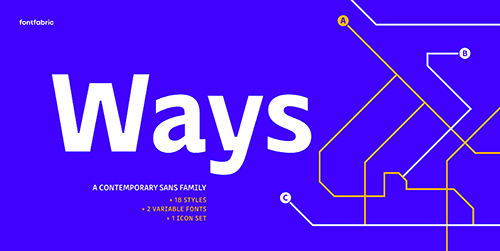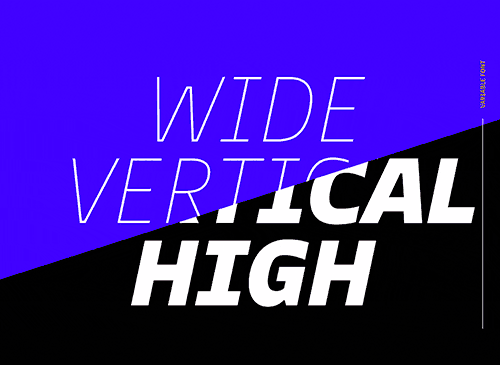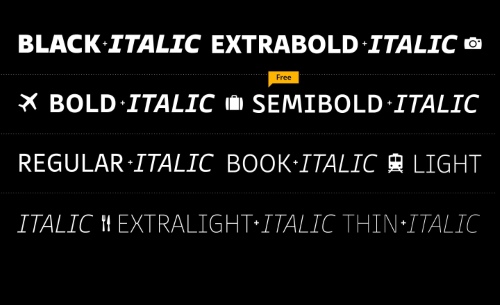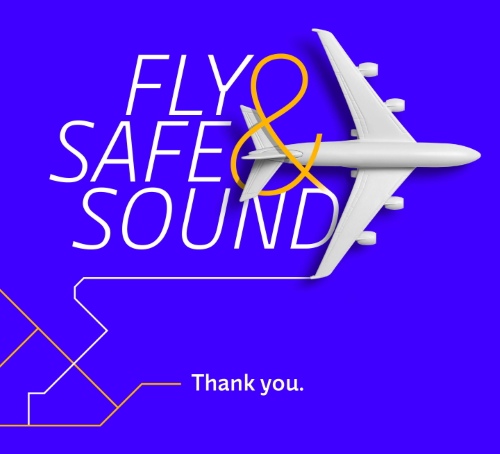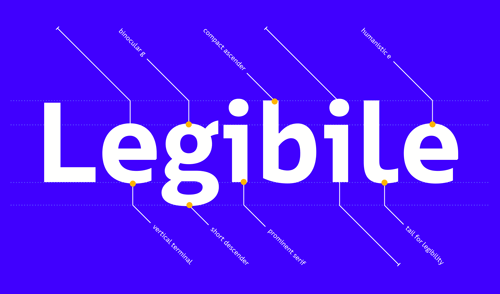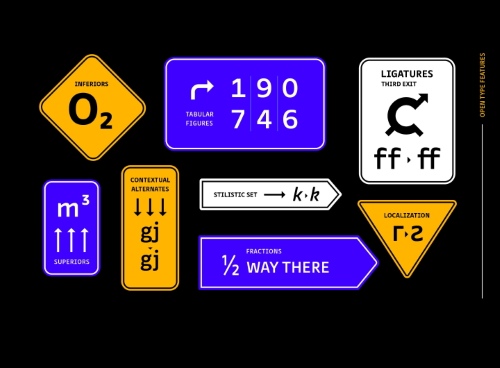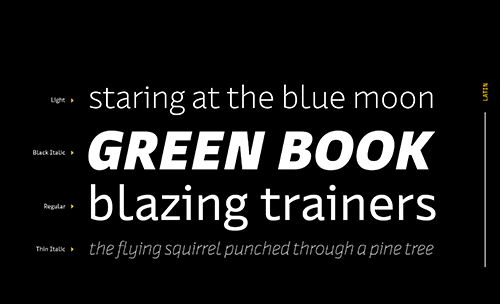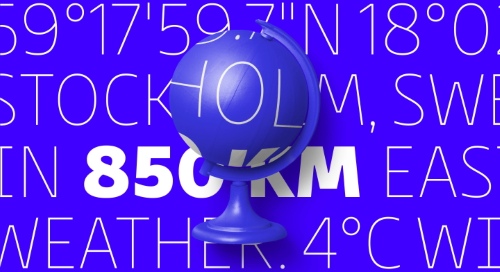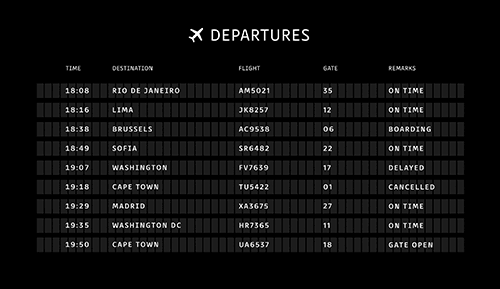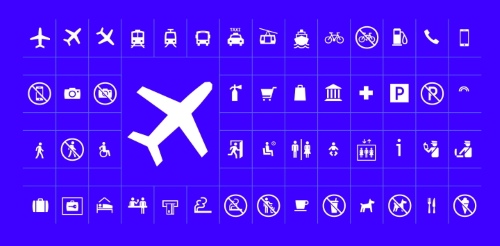
• The Ways Font Family is a collaborative sans-serif designed for versatility and clarity. Its name hints at its exceptional legibility across all 9 weights—from Thin to Black—each paired with matching italics. Created for seamless readability and strong presence, Ways is the result of thoughtful attention to detail, making it a reliable choice for a wide range of design environments.
Why Choose Ways?
• Ways is designed for perfect functionality across its diverse styles, making it an excellent choice for designers of all backgrounds. Its unique blend of brutal and elegant details, along with humanist flair, ensures it stands out in any context. Visual compensations, extra white space, wider apexes, subtle tweaks, and moderate ink traps all contribute to its distinct look and high legibility.
Key Specifications of Ways
• Ways Applicable Across Industries
• Signage systems
• Branding & corporate identity
• Editorial design
• Web & digital media
• UI/UX design
• Packaging
• Environmental graphics
• Advertising campaigns
• Print & publishing
• Mobile applications
• Ways supports Extended Latin and Cyrillic scripts, making it ideal for international projects. The font family is packed with OpenType features such as alternates, stylistic sets, localized forms, ligatures, case-sensitive forms, and more—making it a powerful, adaptive choice for both creative and professional use.